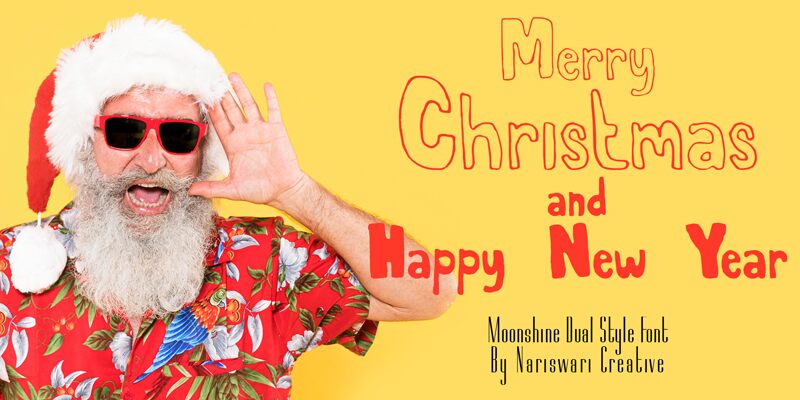
Moonshine is a lively display font designed by nariswari_creative, perfect for projects that require a playful touch. With its outlined cartoon style and semi-bold weight, Moonshine adds a fun and whimsical vibe to any design. Its semi-condensed width makes it ideal for headlines, logos, and packaging designs. Use it for children's books, party invitations or even restaurant menus to add a touch of playfulness. The unique character of Moonshine ensures your message is delivered with personality and flair. Let this font bring some joy and liveliness to your next project!